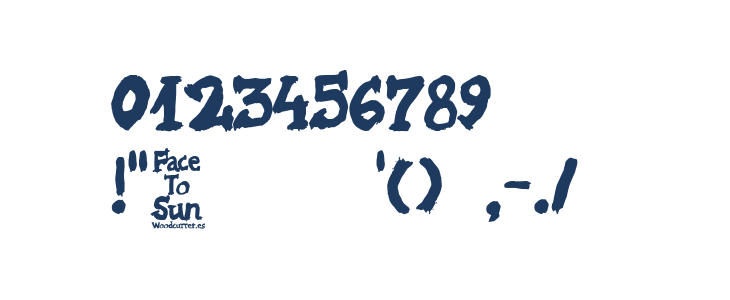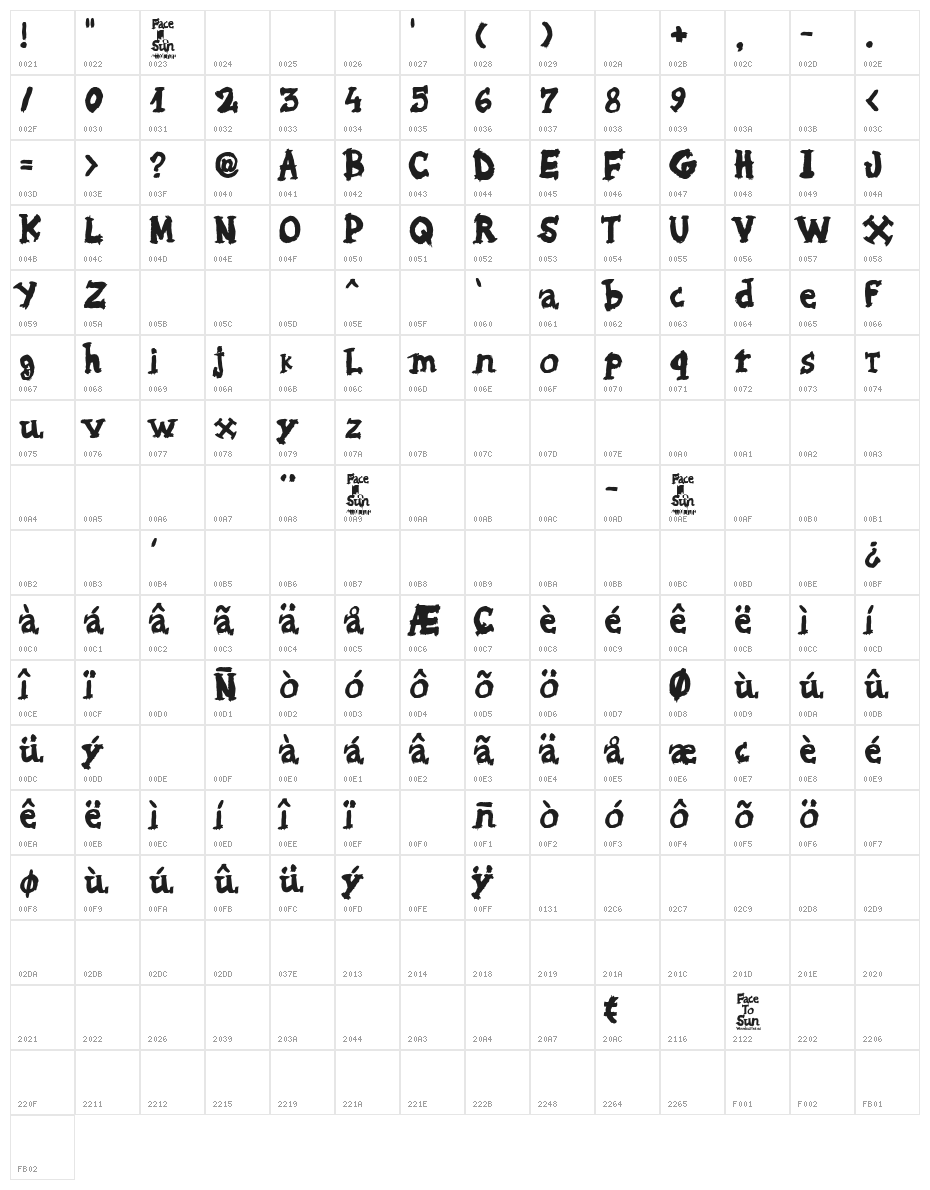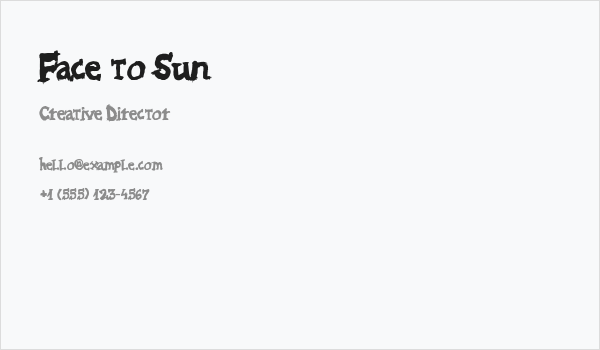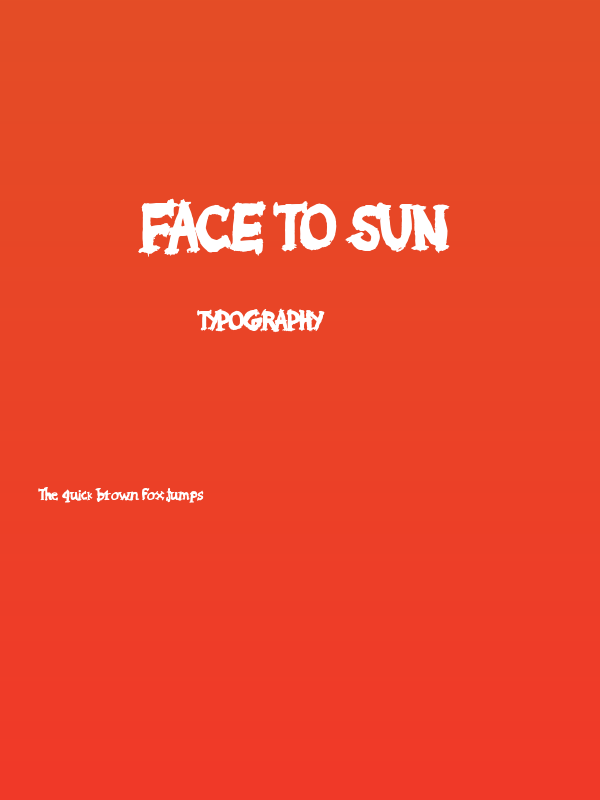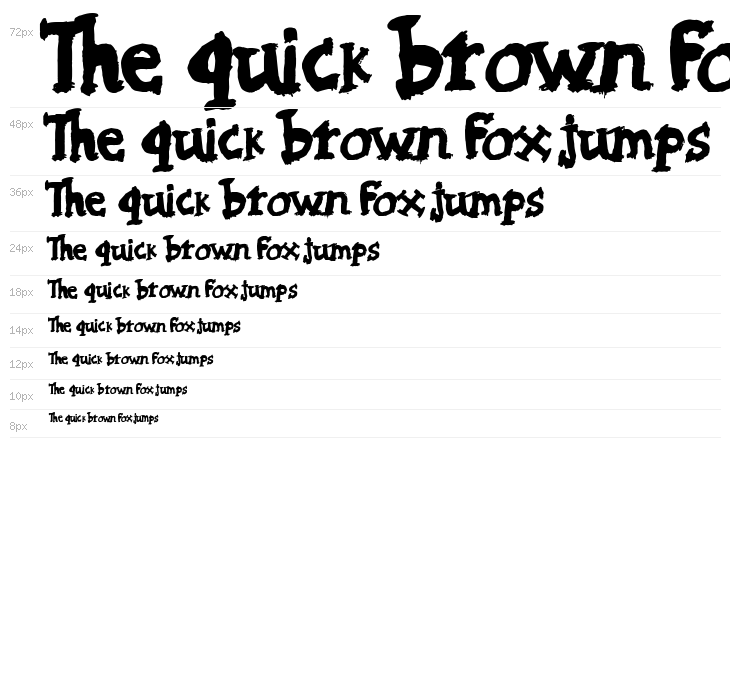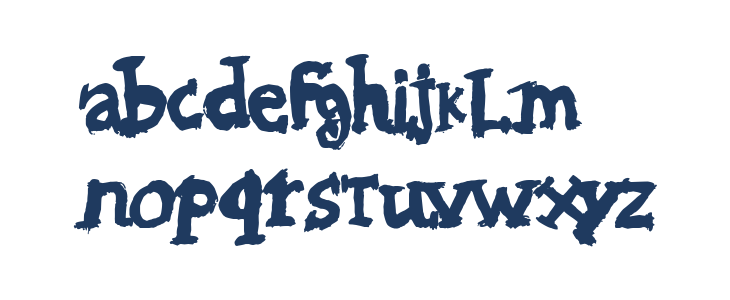
Face to Sun Font
Face to Sun Description
This font features a bold and rugged style with a hand-drawn appearance, characterized by uneven edges and a brush-like texture. The uppercase and lowercase letters maintain a consistent width, giving the font a cohesive look. The numbers and special characters follow the same design principles, ensuring uniformity across all glyphs. The font's unique style is reminiscent of graffiti or street art, making it stand out with its dynamic and energetic feel. The strokes are thick and irregular, adding to the font's distinctive and artistic flair. This font is ideal for projects that require a bold statement or an edgy, creative touch.
| Proposed Projects | Ideal for posters, album covers, street art designs, and creative branding. |